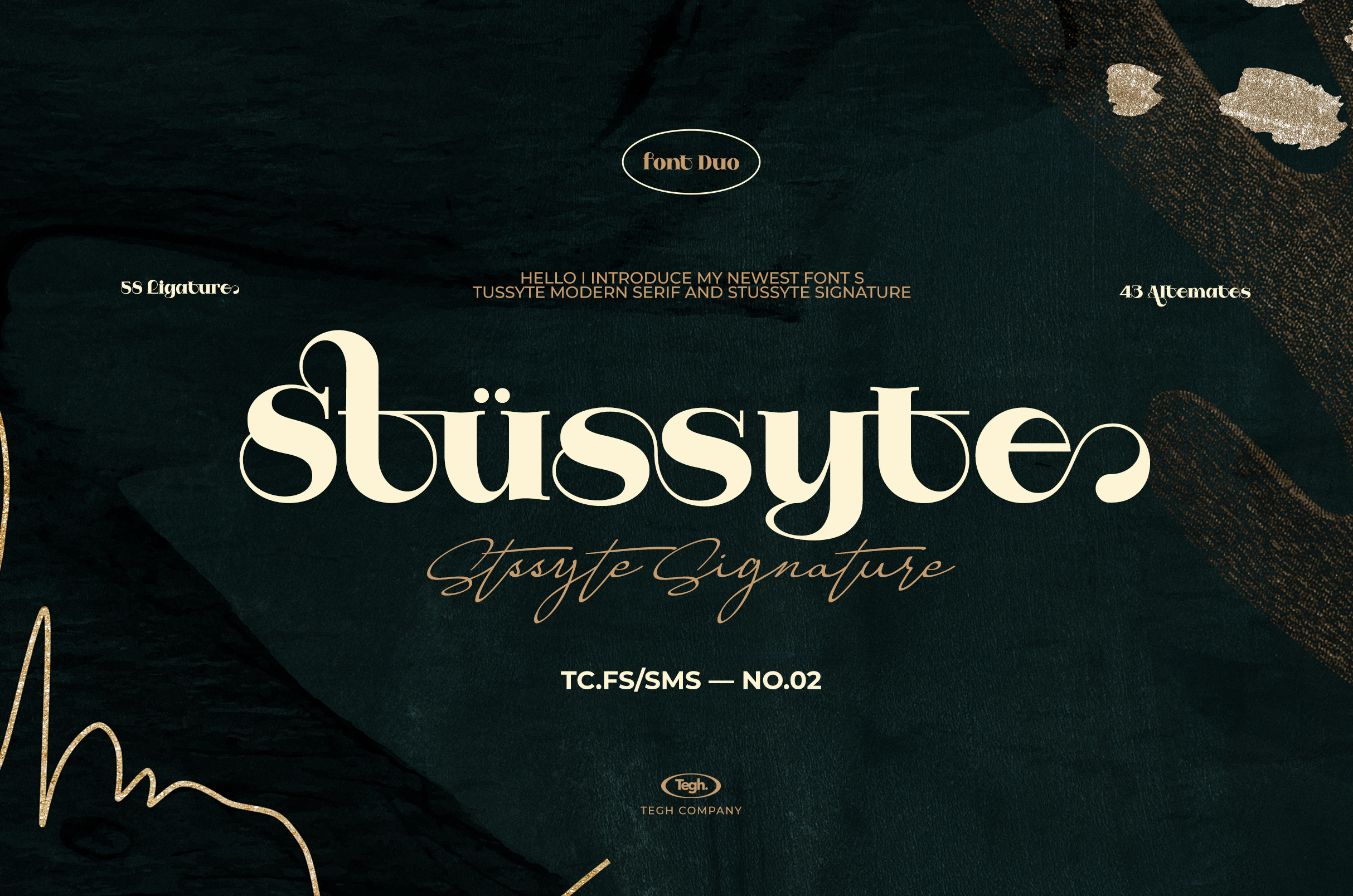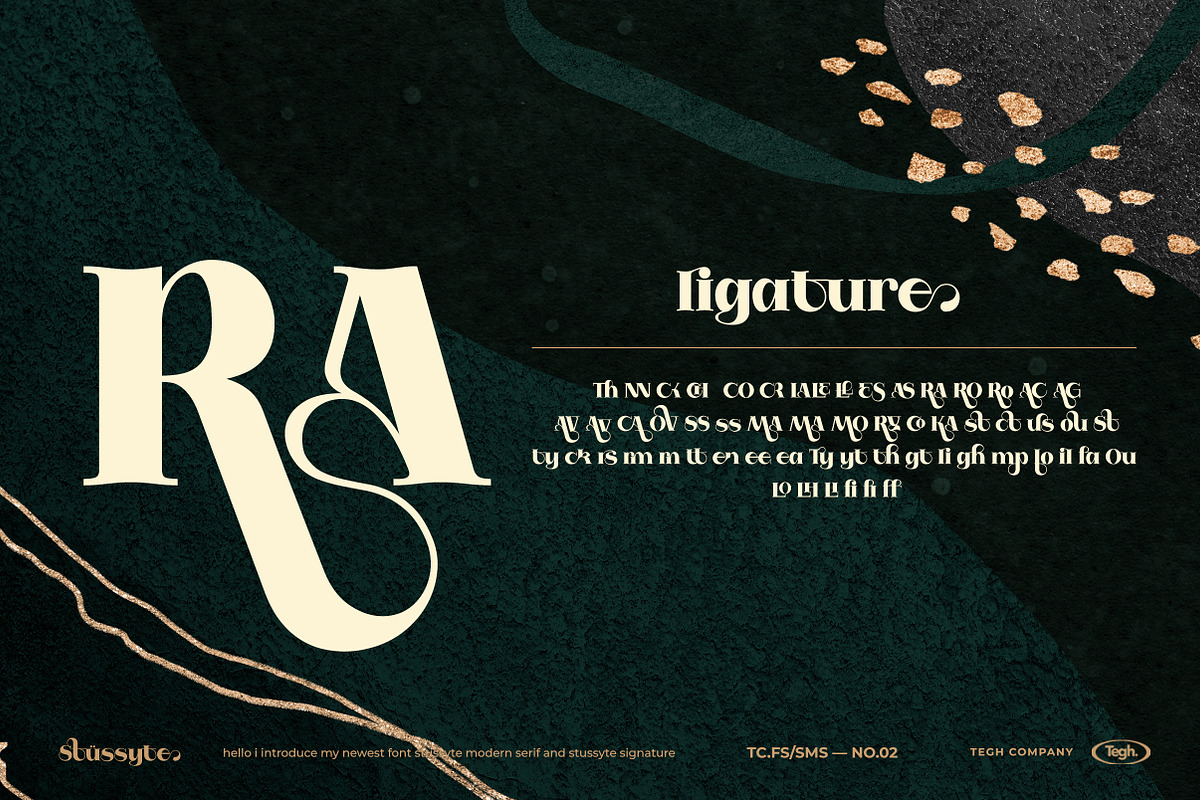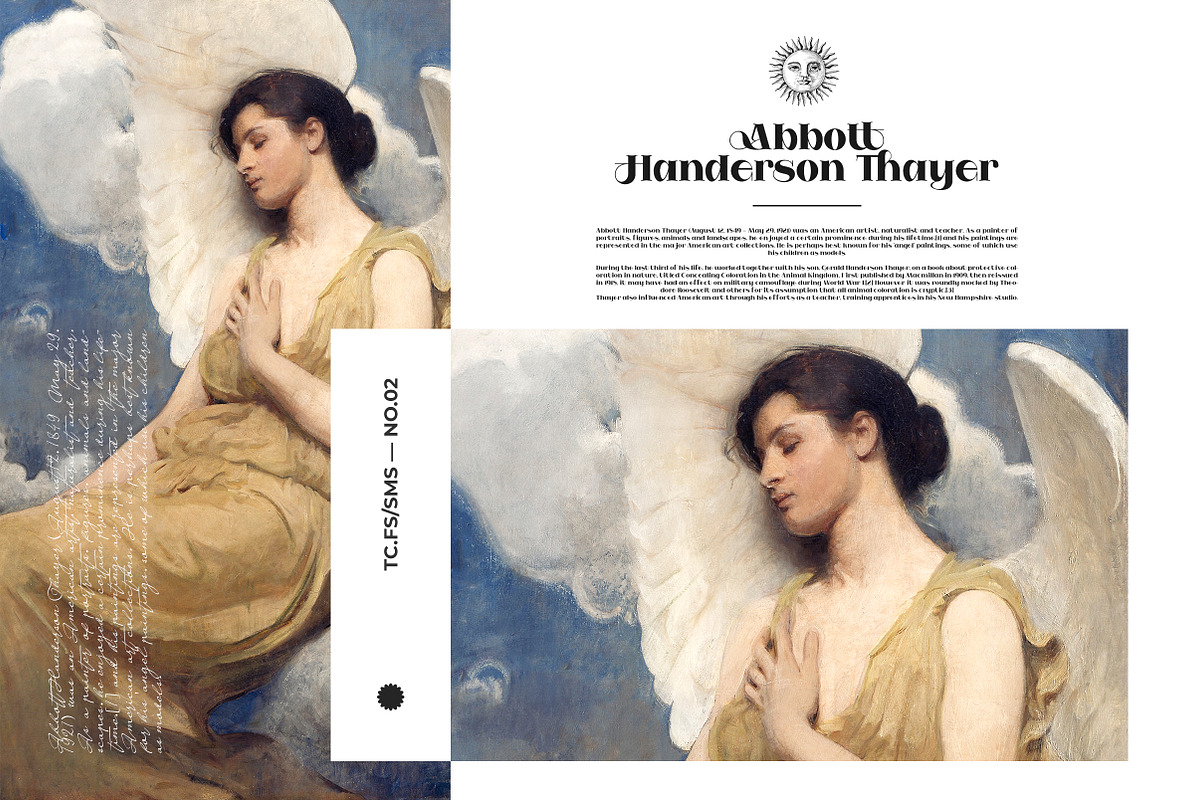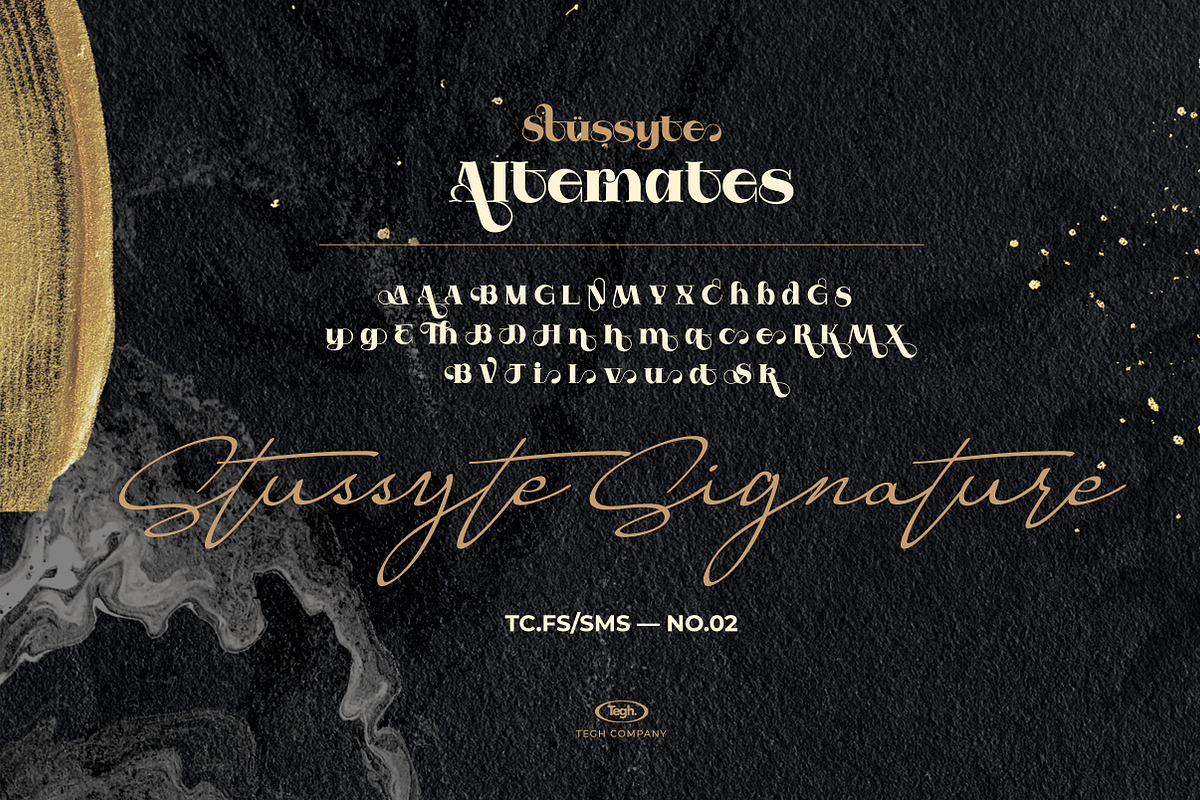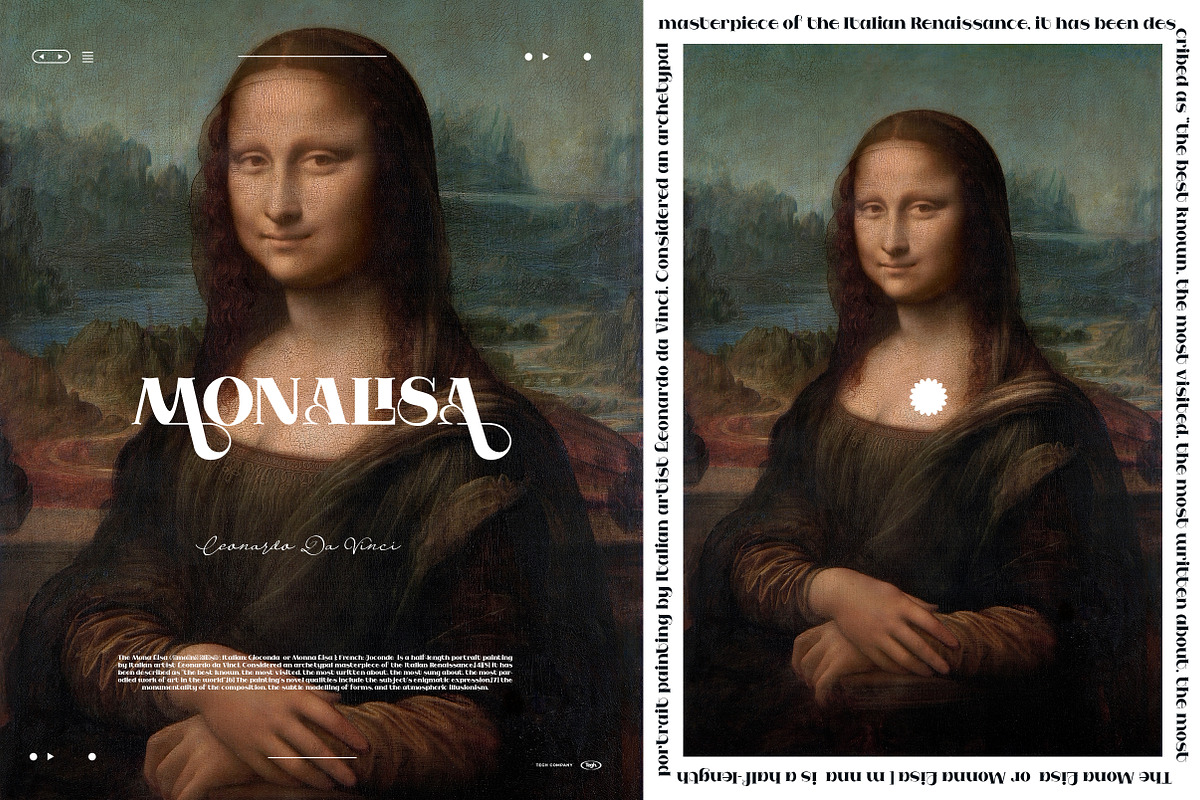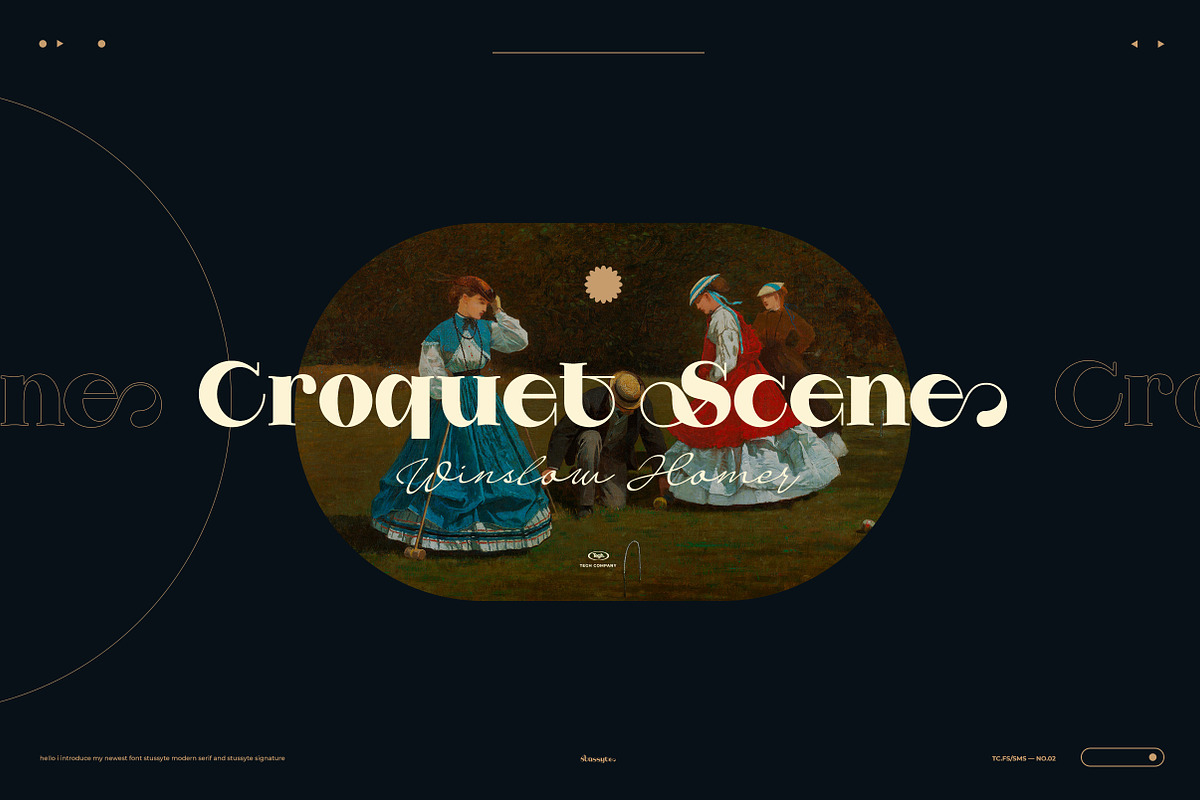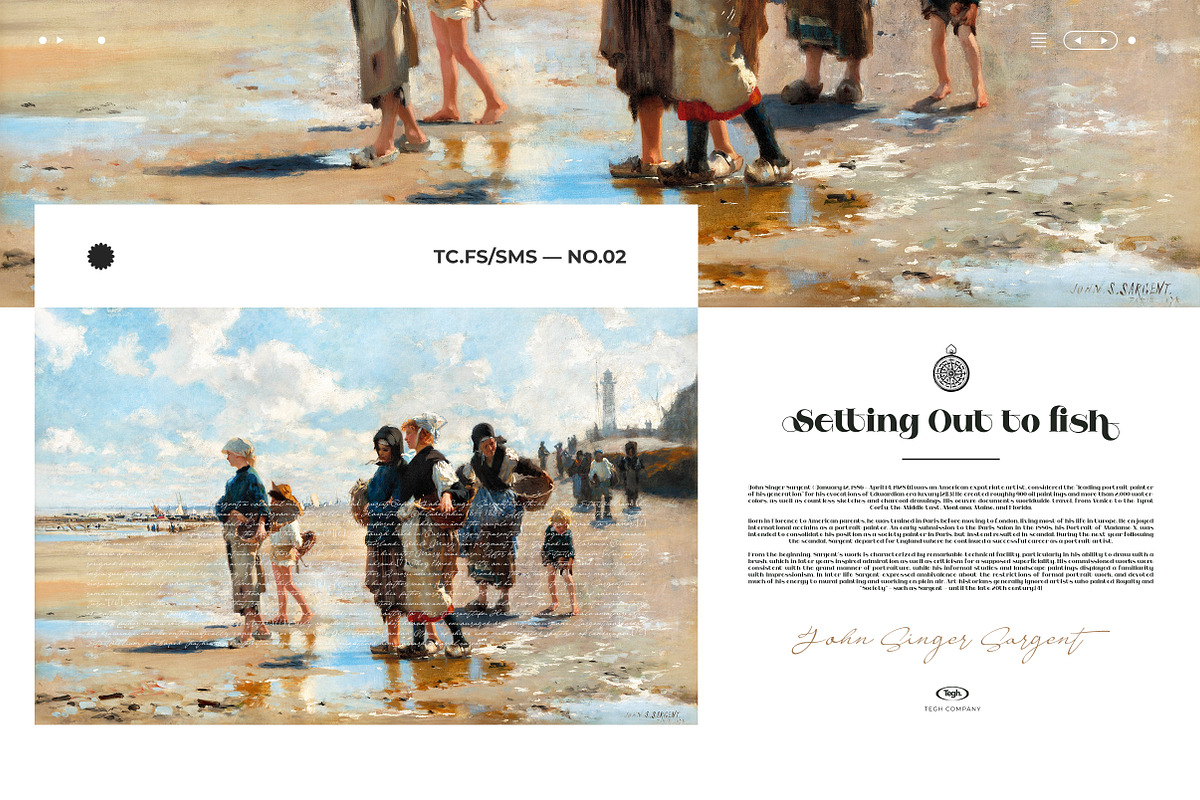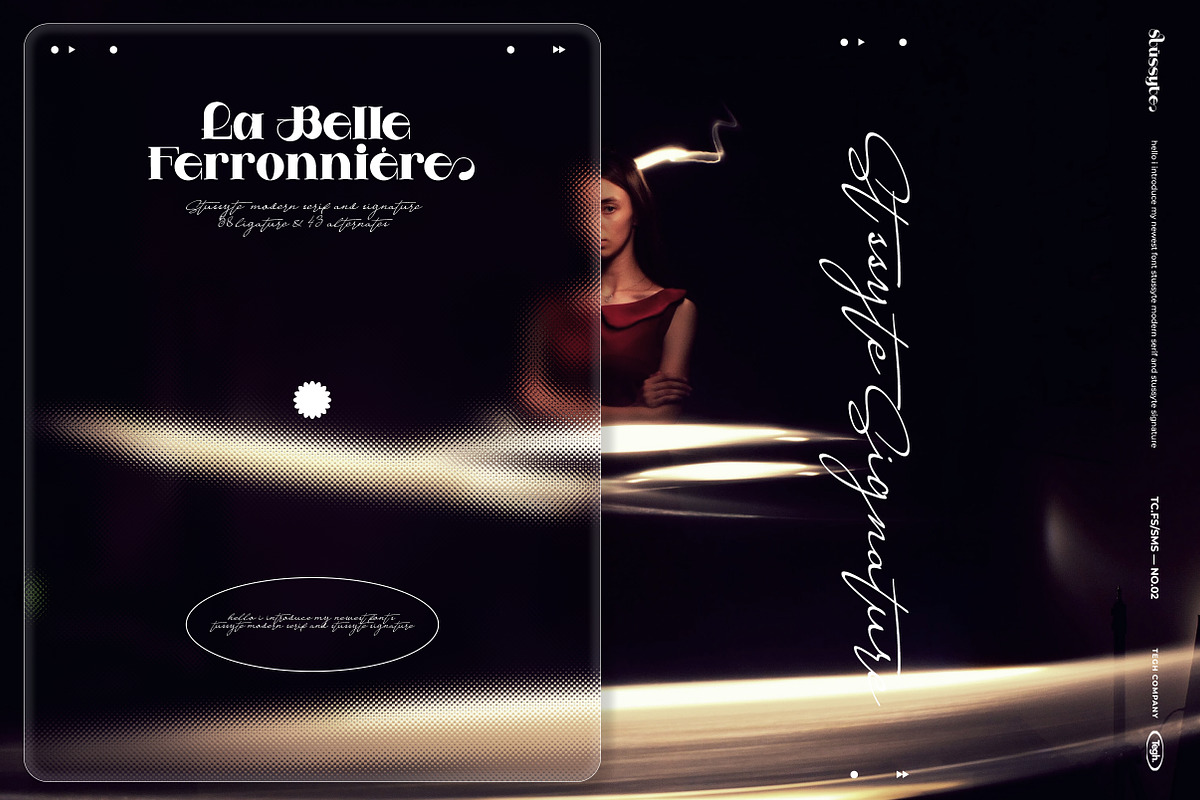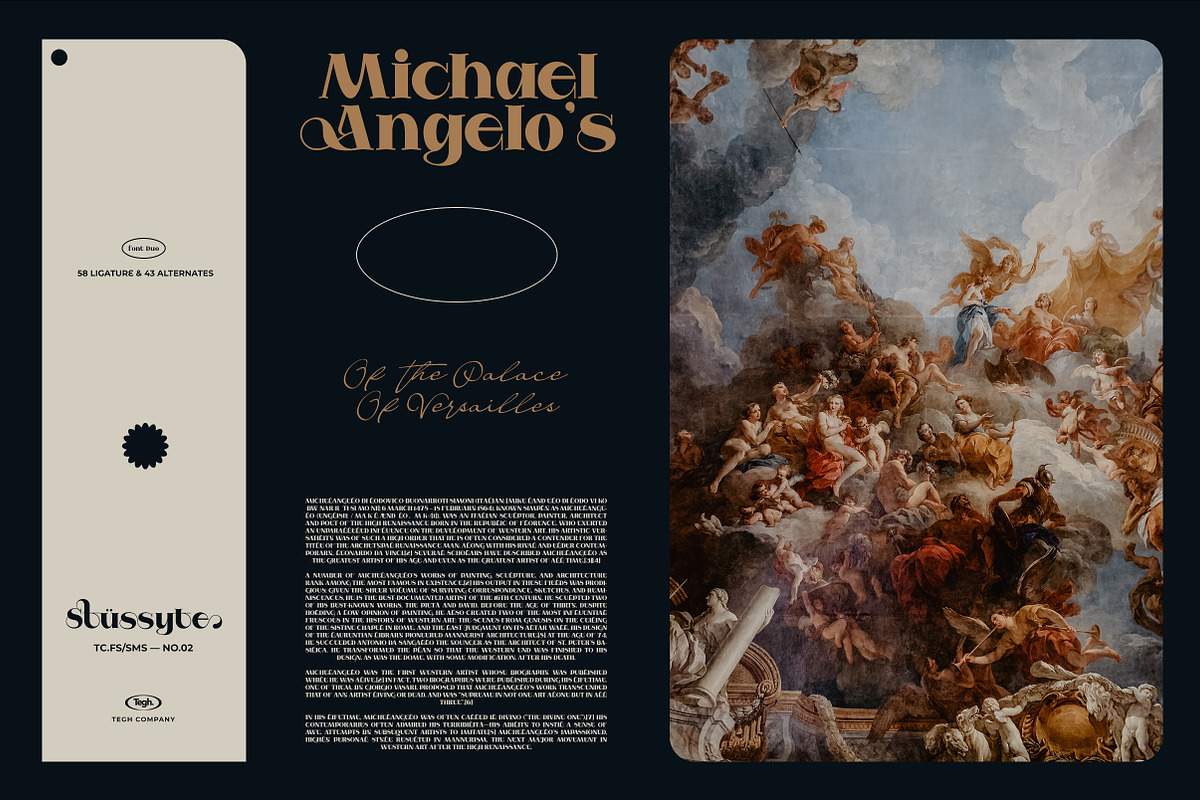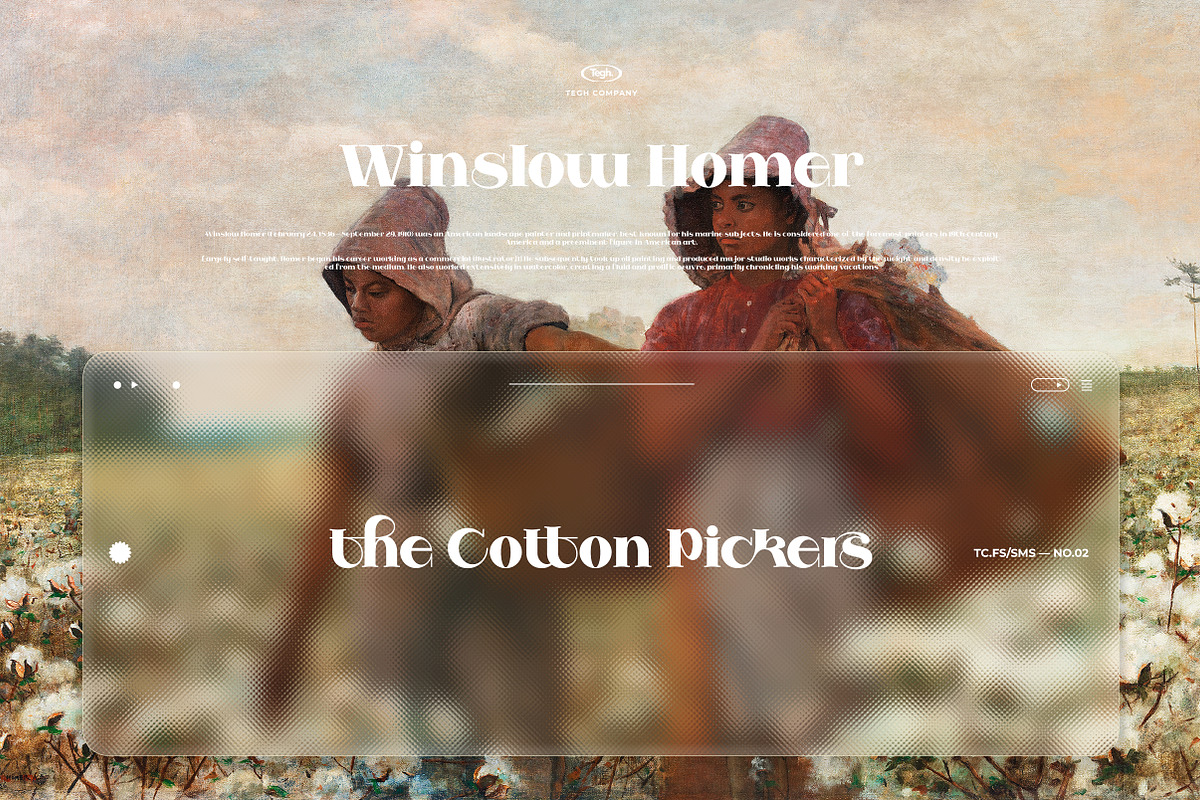
Stussyte Font Duo
stussyte is one of the fonts that will make it easier for you all to design something and also I added a signature font that gives an elegant impression to your design, With this font, I hope you can maximize the designs you make, and can make it easier for you to make brand designs, social media, magazine templates and layouts and others.